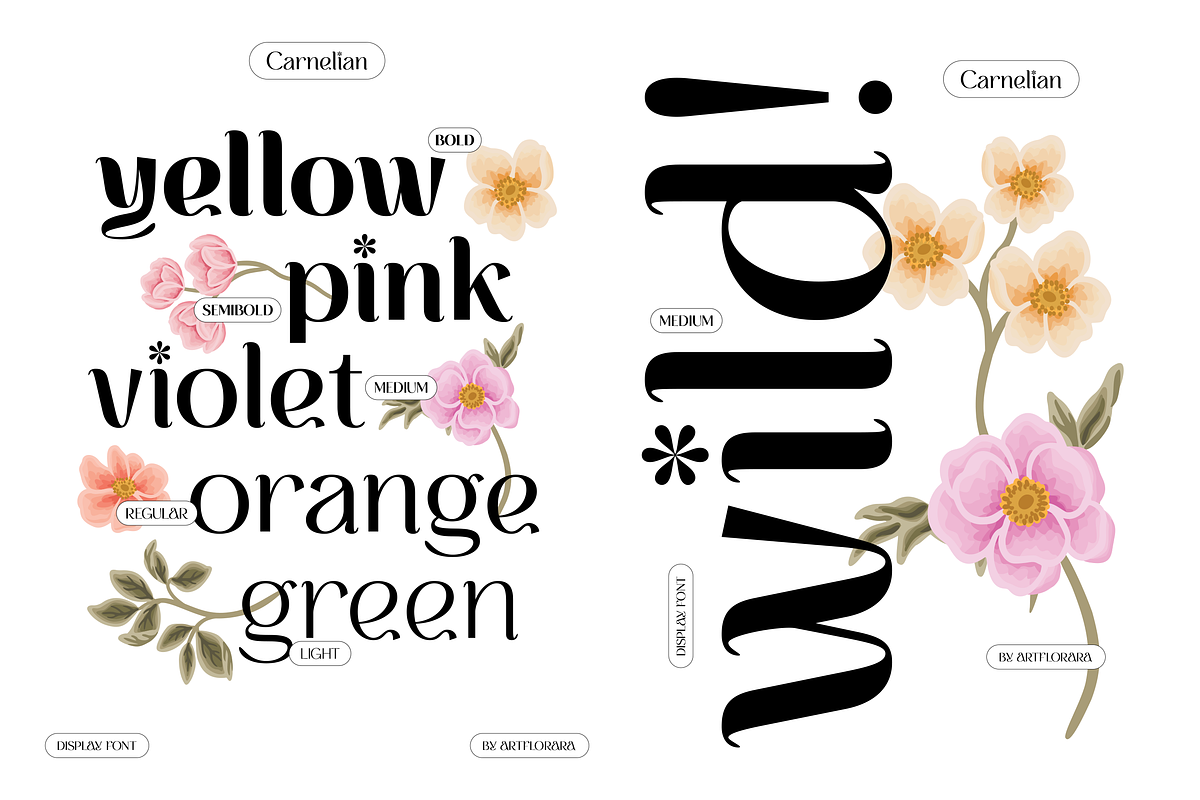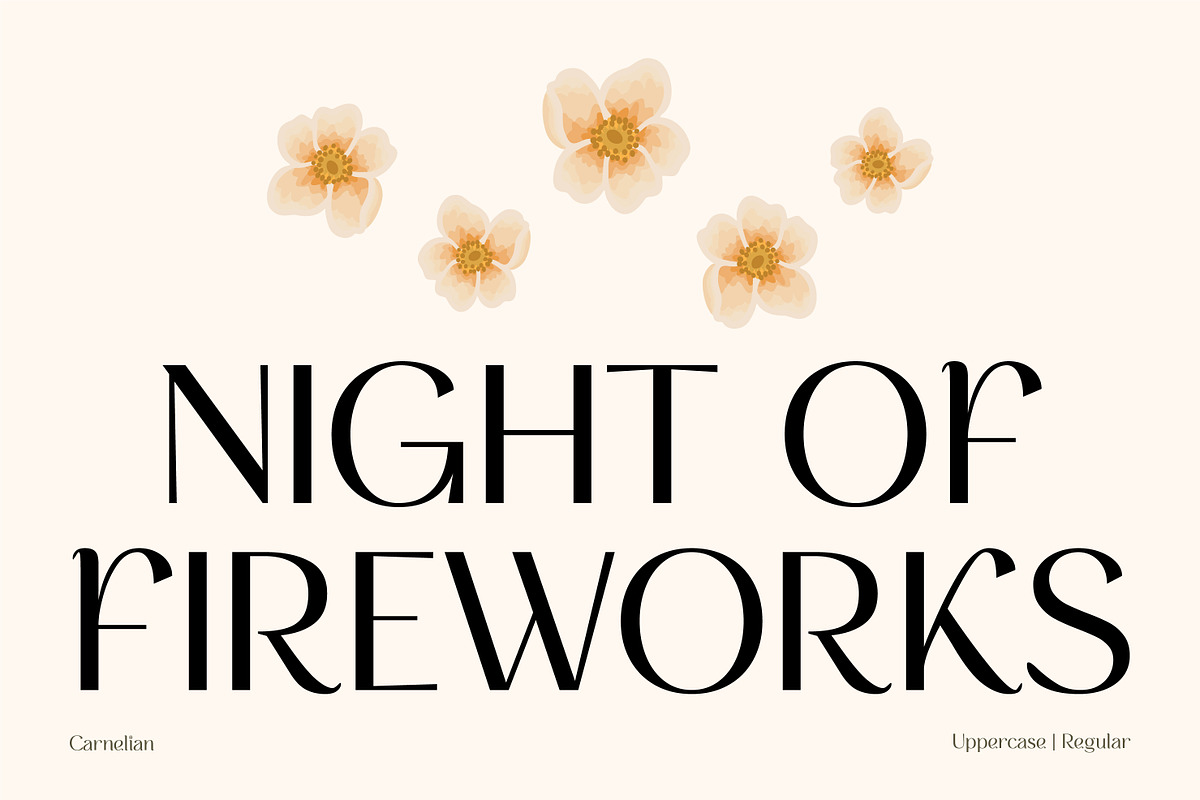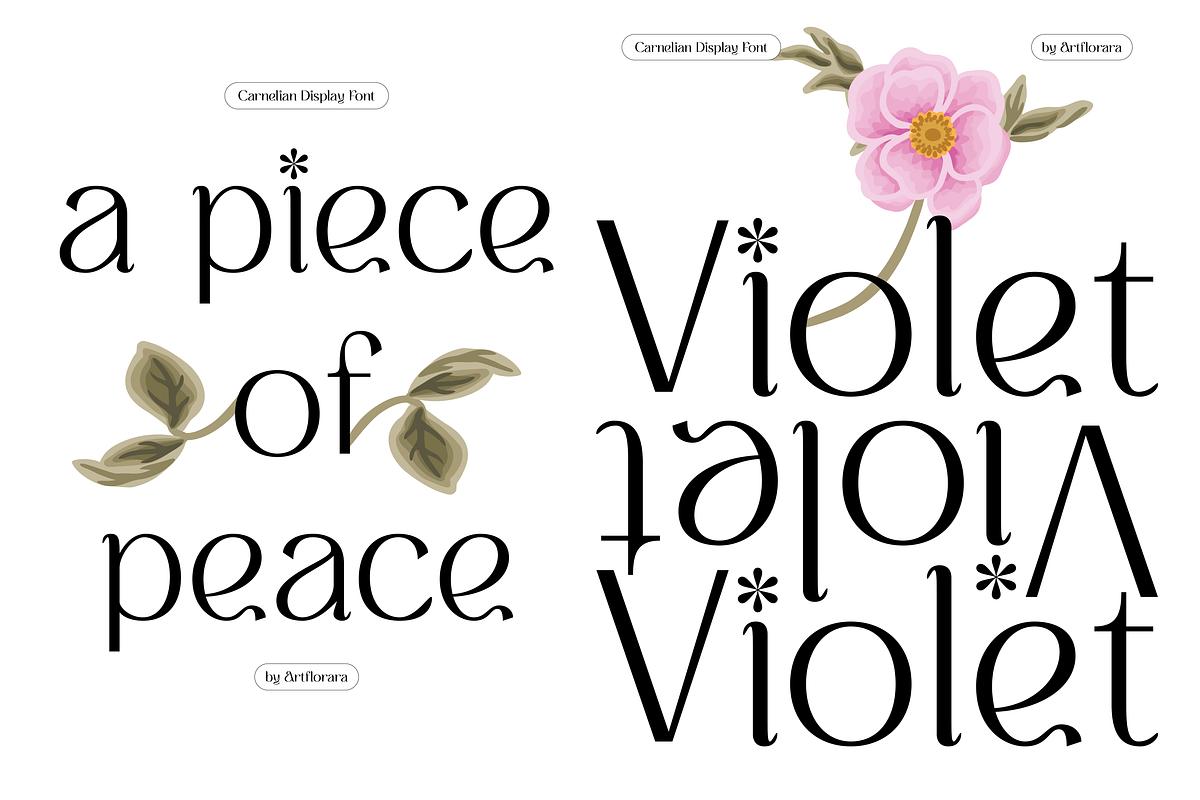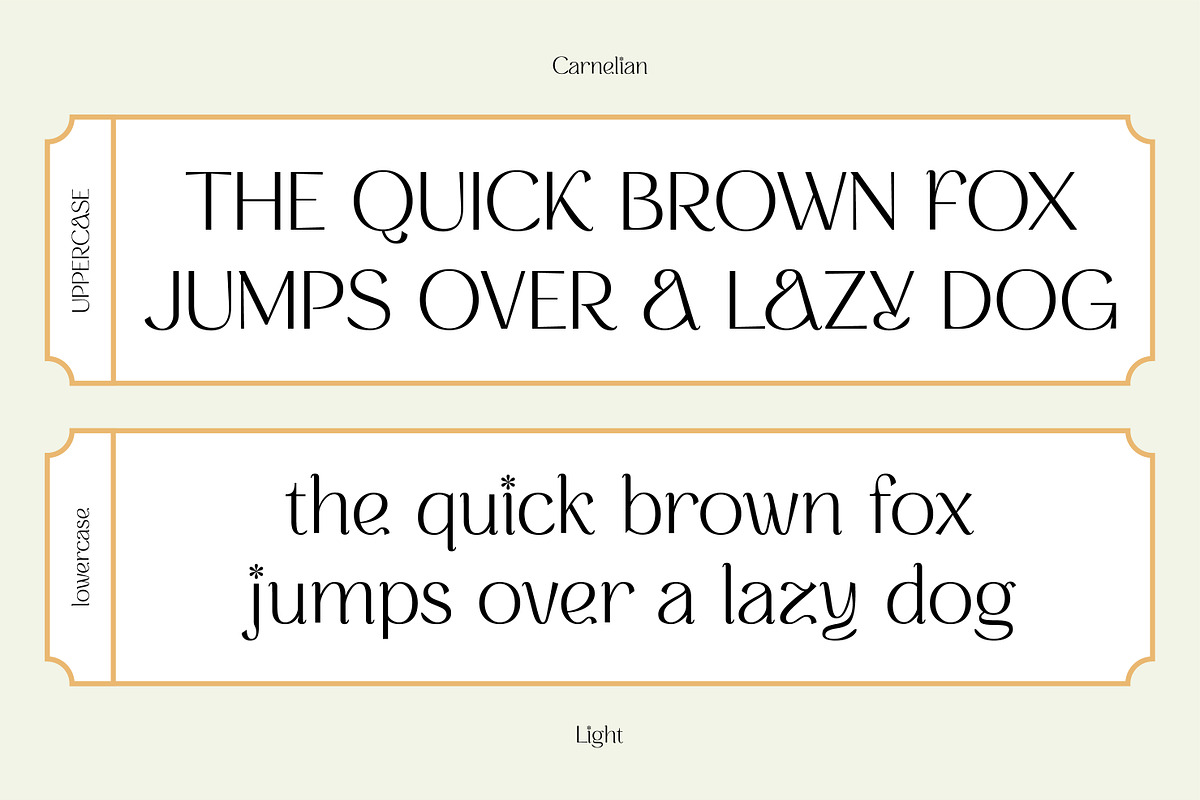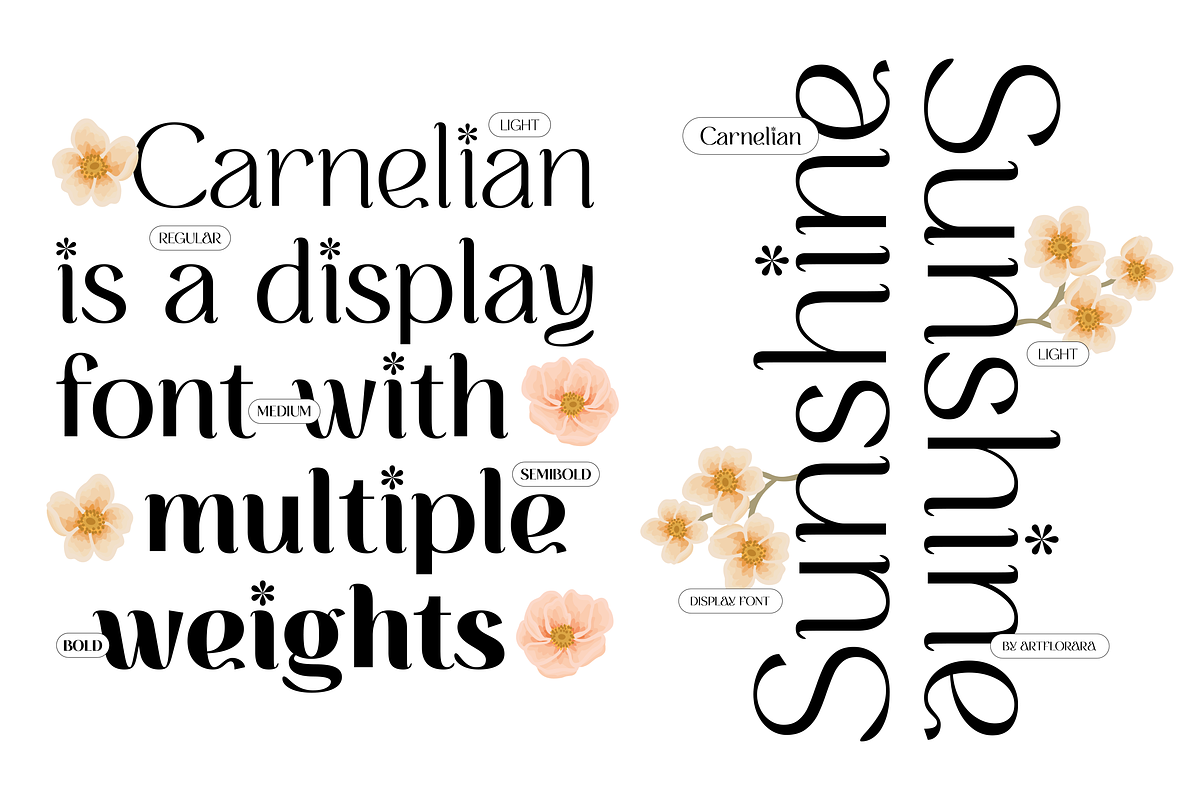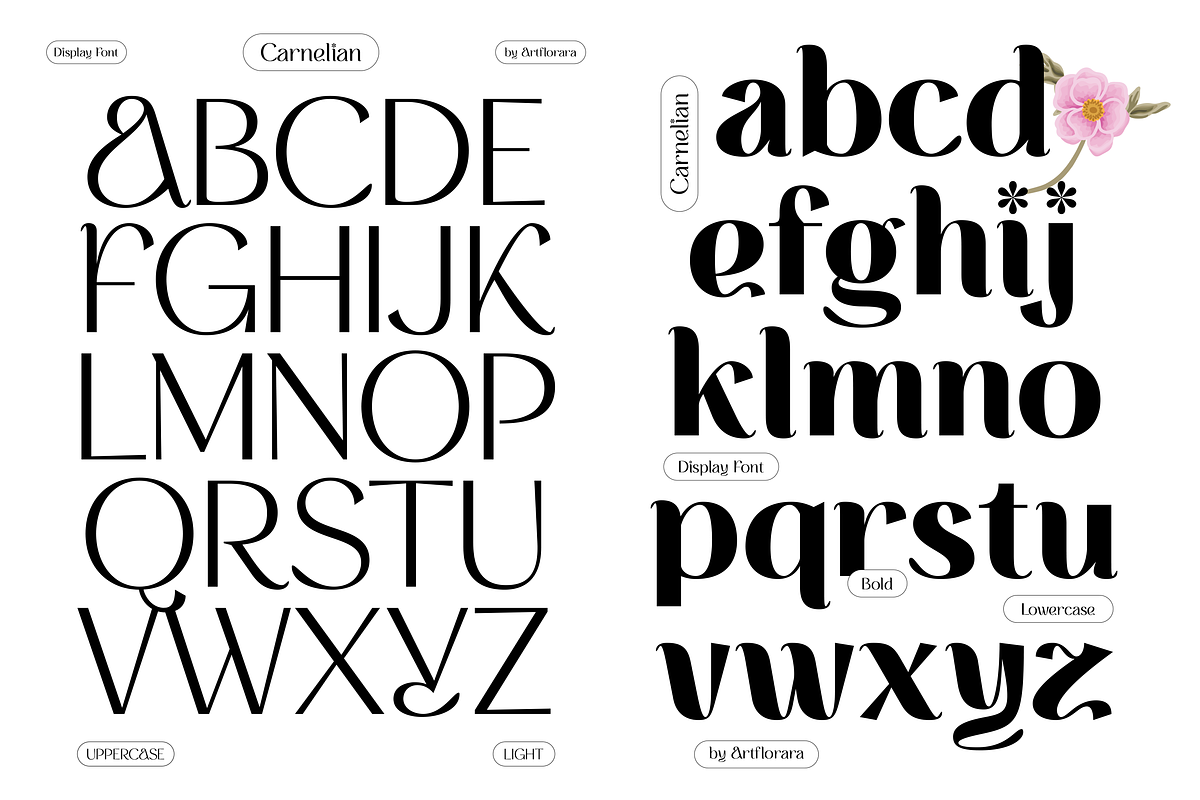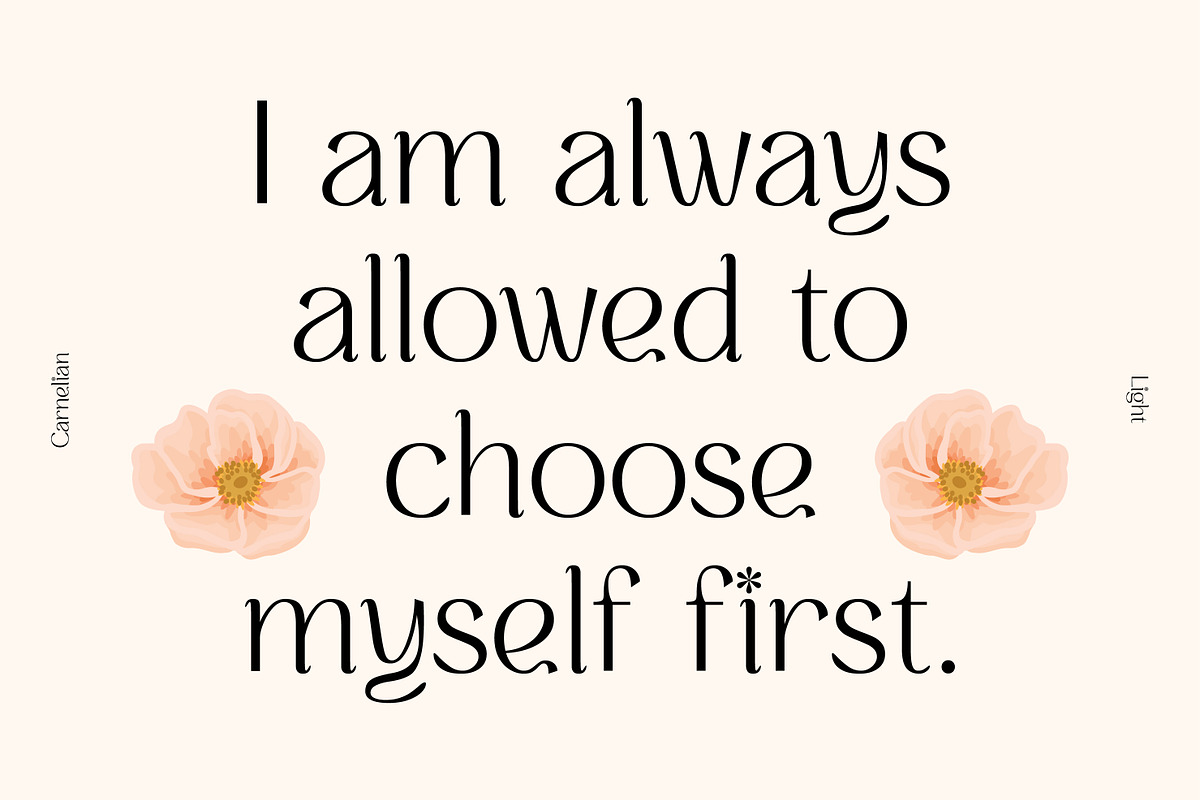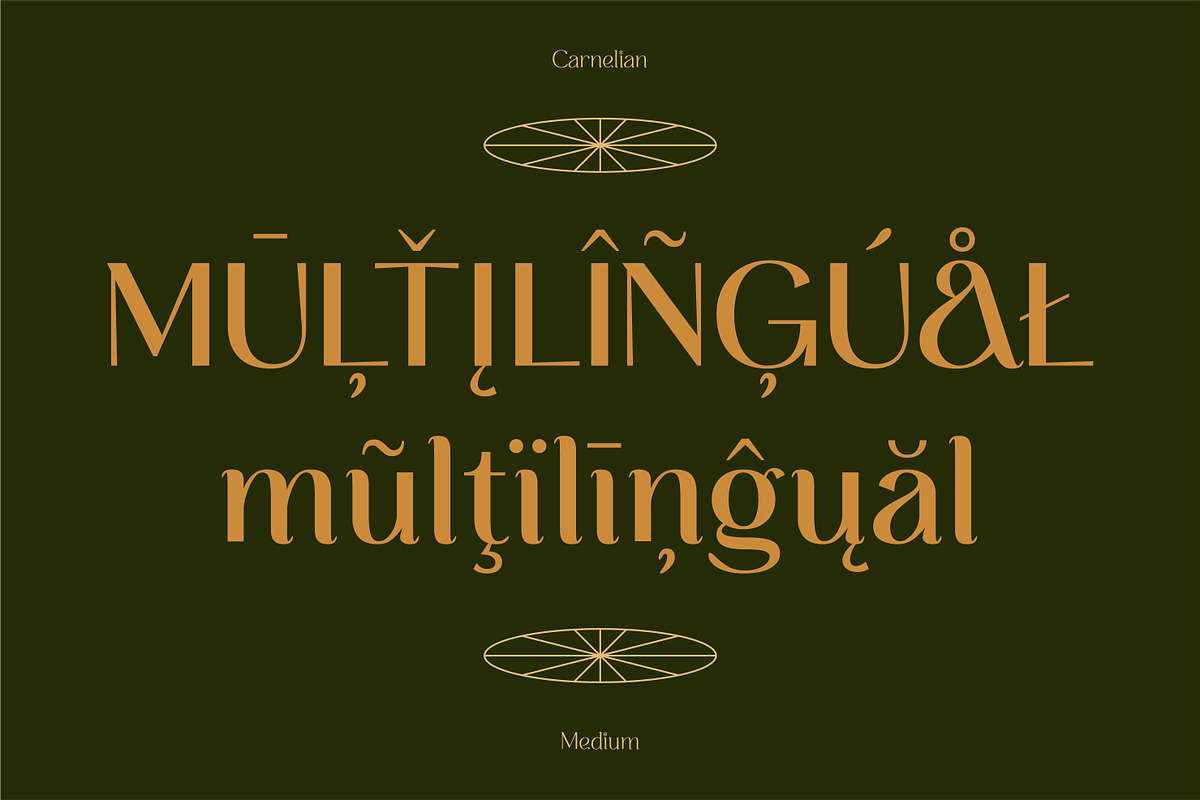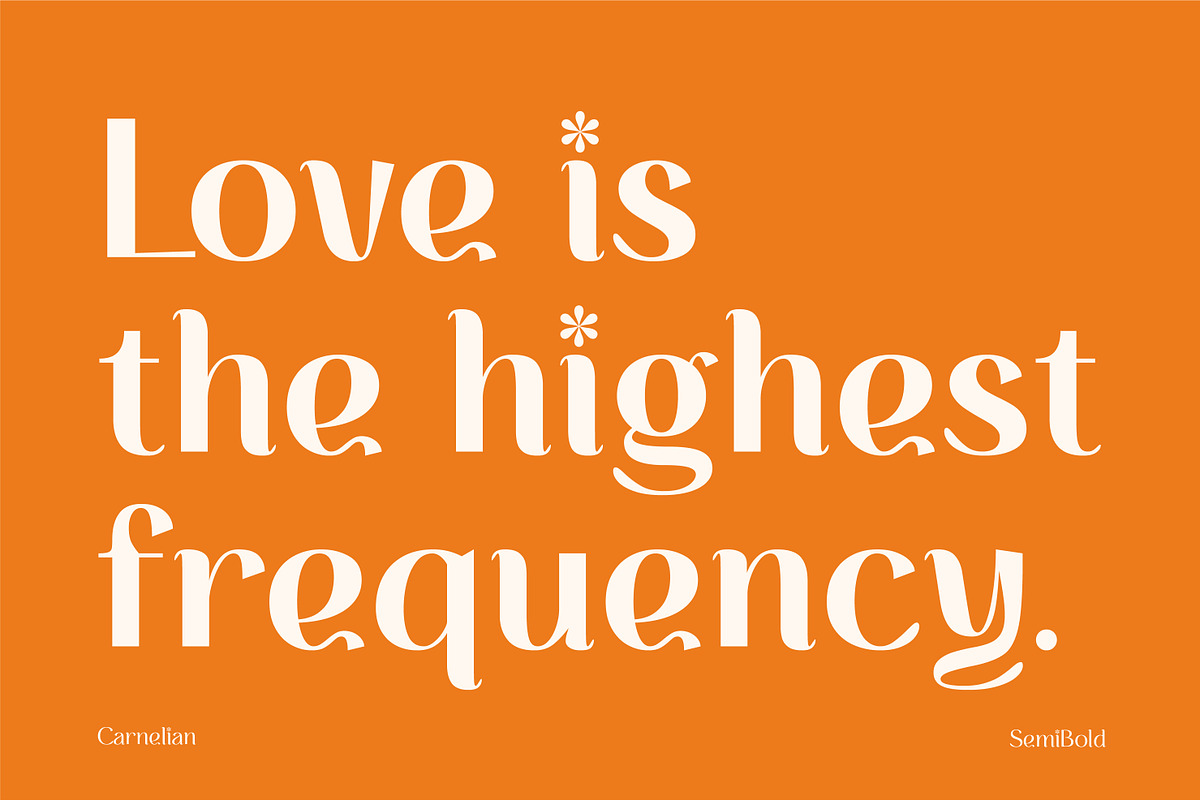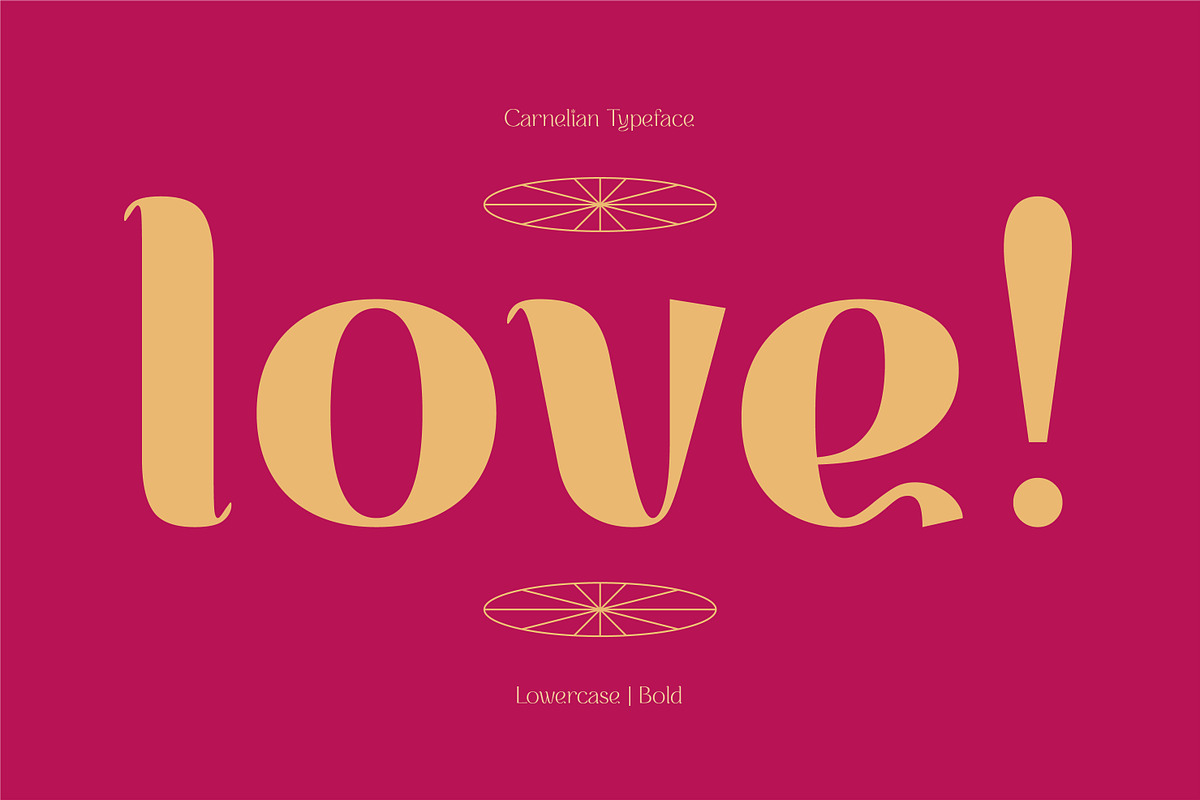
CARNELIAN - Display Variable Type
Carnelian is a beautifully delicate and elegantly refined sans-serif display variable typeface, offering five graceful weights. With a moderate contrast, it balances softness and sophistication, making it a perfect choice for timeless yet modern designs.
Carnelian features flower-shaped tittles on the lowercase i and j, adding a subtle organic charm, while the uniquely designed tail on the y and the distinctive finial on the lowercase e give it an artistic, elegant twist. Ideal for wedding invitations, greeting cards, branding, editorial layouts, and any project that calls for refined individuality.